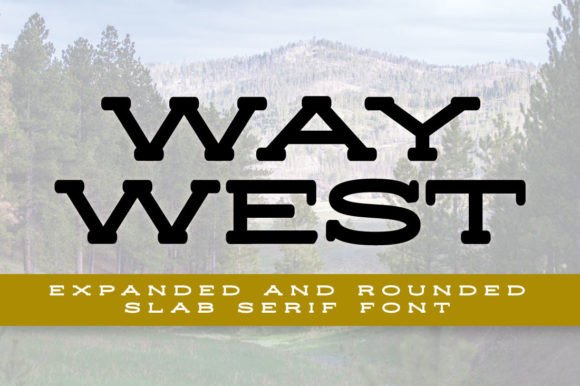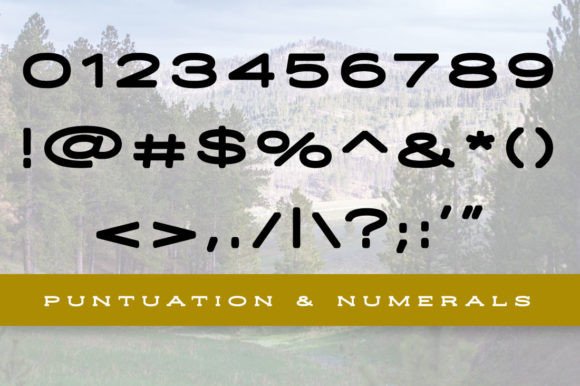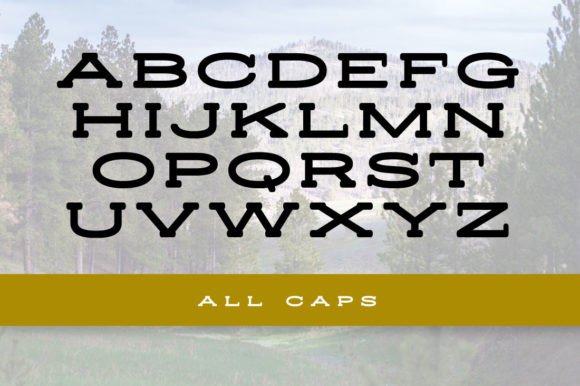
Way West
About Way West
Way West is a bold and sturdy slab serif font, perfect for headlines and display use. Way West is sure to make a statement in any design. The rounded edges give the font a friendly and approachable feel, while the large serifs add a touch of vintage charm. Way West is versatile enough to be used in a variety of projects, from branding to advertising to editorial design.